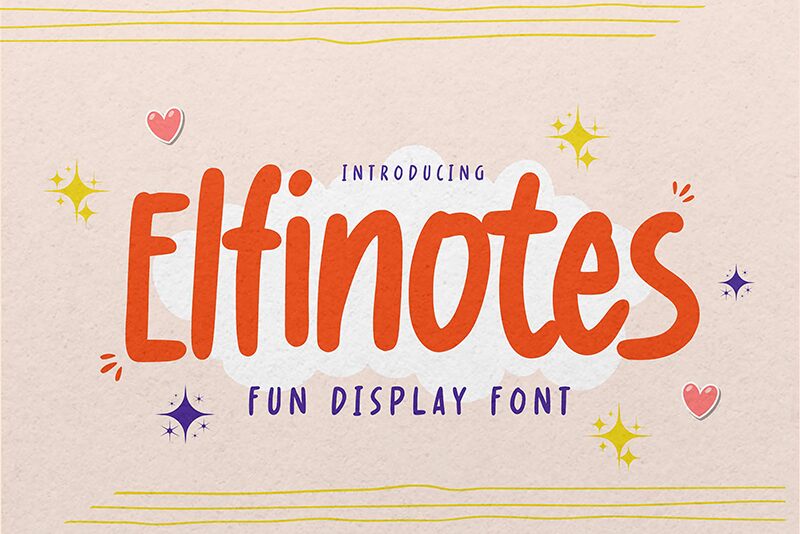
Elfinotes
Elfinotes, a creation by font designer Gassstype, is a charming and playful condensed handwritten font. Its modern style and dramatic movement give off a casual and quick vibe, making it perfect for a variety of projects.
This fun display font is ideal for labels, posters, and designs that aim to look modern, authentic, and unique. It’s versatile enough to be used in quotes, DIY projects, branding, packaging, greeting cards, websites, photography overlays, signs, scrapbooking, tags – the possibilities are endless!
With its textured and unique characteristics giving off a natural look and feel to any project it’s used in – Elfinotes is the perfect choice for those looking to add an extra touch of creativity and personality.